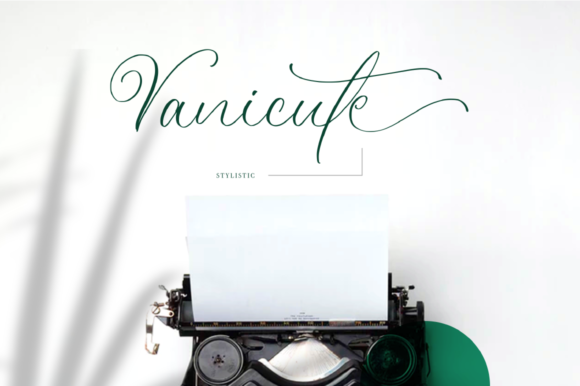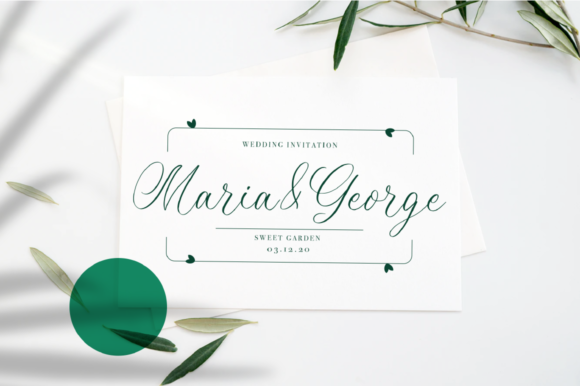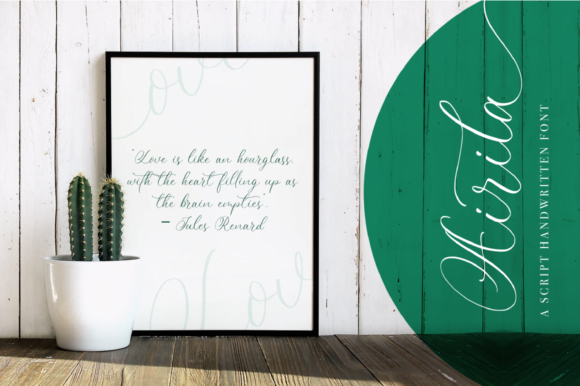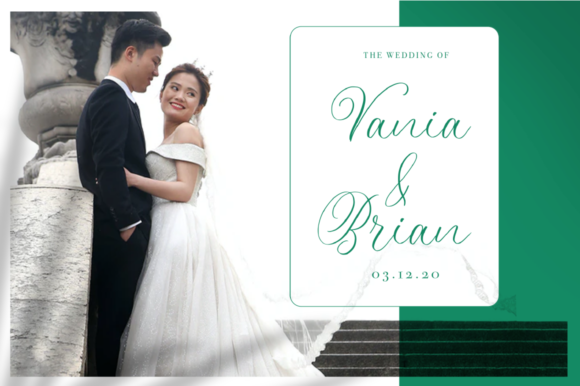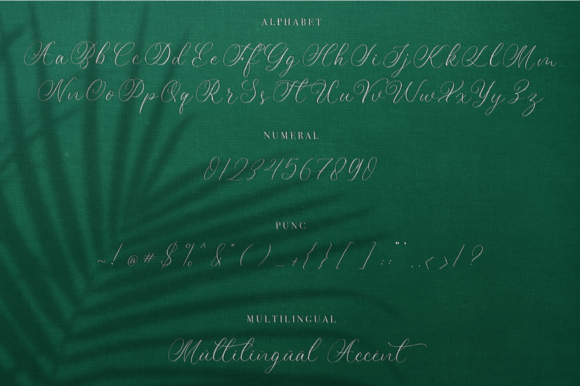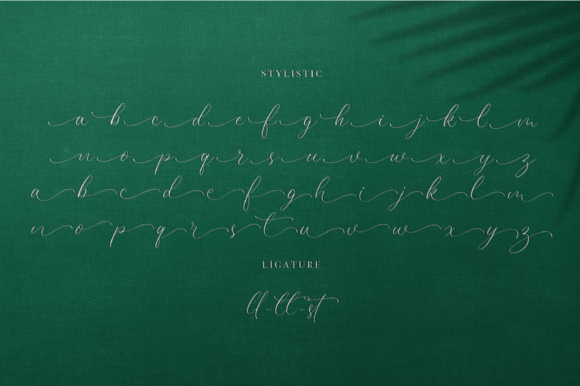
Discover the Enchanting Airila Font: A Versatile Script Font for Creative Projects
Are you a designer, crafter, or DIY enthusiast looking for a unique and versatile font to elevate your creative projects? Look no further than the Airila Font, an enchanting handwritten script font that is perfect for a wide range of applications. From greeting cards to headlines, Airila is a font that can add a touch of elegance and sophistication to any design.
What Makes Airila Font So Special?
Airila is more than just a beautiful font – it’s a versatile tool that can be used in a variety of creative projects. Here are just a few reasons why Airila stands out:
- Handwritten charm: Airila has a unique, handwritten feel that adds a personal touch to any design. Its elegant strokes and flowing curves make it perfect for creating beautiful, eye-catching text.
- Versatile applications: Whether you’re designing a greeting card, creating a headline, or crafting a logo, Airila is the perfect font for the job. Its versatility makes it a great addition to any design toolkit.
- PUA encoded: Airila is PUA (Private Use Area) encoded, which means that you can access all of the glyphs and swashes with ease. This makes it easy to customize your text and add unique flourishes to your designs.
Uses for Airila Font
So, what can you use Airila for? The possibilities are endless! Here are a few ideas to get you started:
- Greeting cards: Add a personal touch to your greeting cards with Airila’s elegant, handwritten script.
- Headlines: Make your headlines stand out with Airila’s bold, eye-catching strokes.
- Logos: Create a unique and memorable logo with Airila’s versatile, customizable font.
- Social media graphics: Elevate your social media graphics with Airila’s elegant, sophisticated script.
- Branding: Use Airila to create a consistent brand identity across all of your marketing materials.
Tips for Using Airila Font
Here are a few tips for getting the most out of Airila:
- Experiment with different sizes: Airila looks great in a variety of sizes, from large headlines to smaller body text.
- Mix and match: Combine Airila with other fonts to create a unique and eye-catching design.
- Play with swashes: Use Airila’s PUA encoded glyphs and swashes to add unique flourishes to your text.
Why Designers and Crafters Love Airila Font
Airila has quickly become a favorite among designers and crafters, and for good reason. Here are a few reasons why:
- Unique and elegant: Airila’s handwritten script is both unique and elegant, making it perfect for designs that need a touch of sophistication.
- Versatile: Airila can be used in a wide range of applications, from greeting cards to headlines.
- Easy to use: Airila’s PUA encoding makes it easy to access all of the glyphs and swashes, even for designers who are new to font editing.
If you’re looking for a versatile and elegant font to elevate your creative projects, look no further than Airila. With its unique handwritten script, PUA encoding, and wide range of applications, Airila is the perfect addition to any design toolkit. Whether you’re a designer, crafter, or DIY enthusiast, Airila is sure to become a favorite font for years to come.